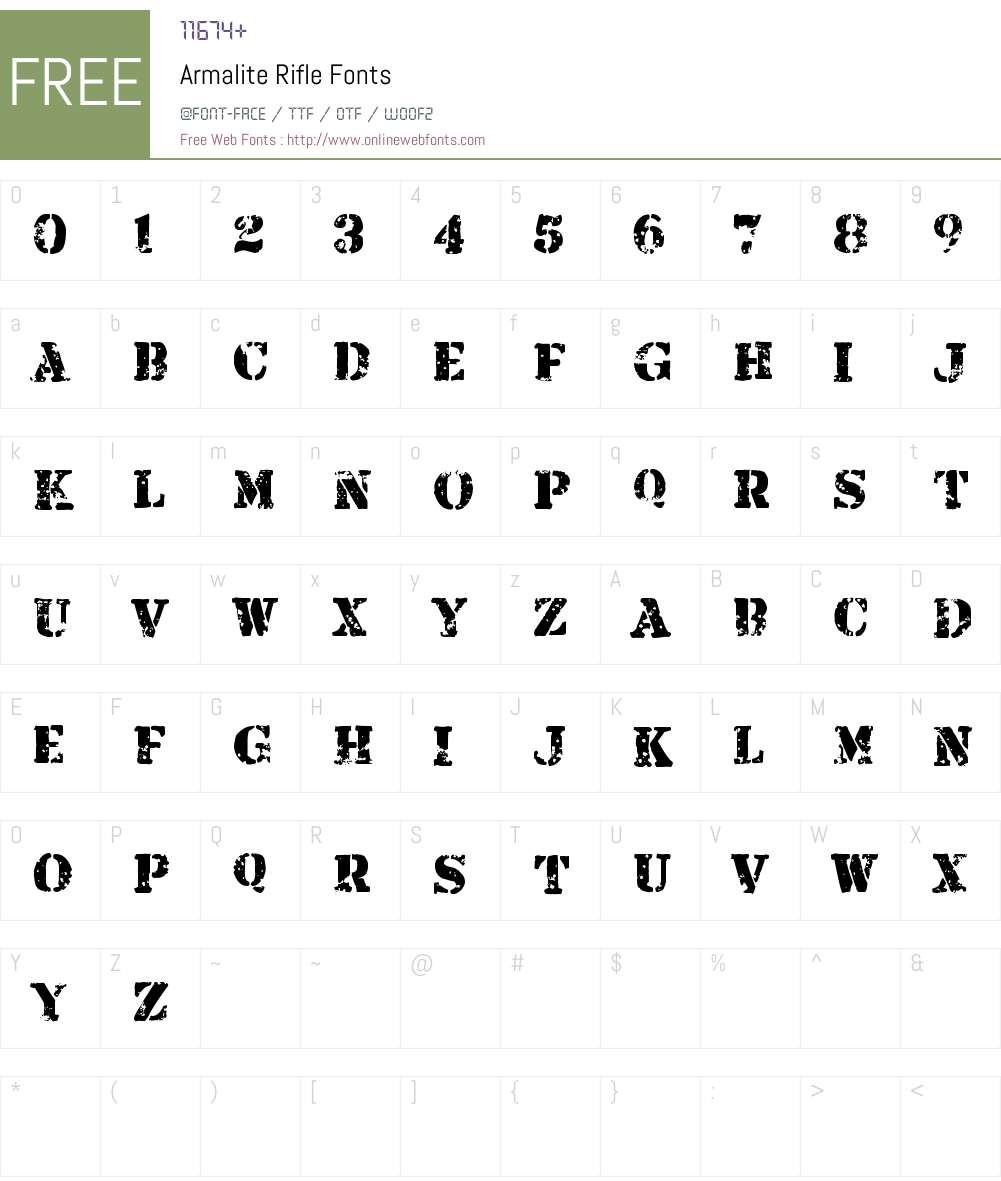
Armalite Rifle Pro Font Free
Armalite Rifle Pro Font Free. Military style stencil type, badly bruised by shotgun fire,. Browse font spring 2022 deals.
For those of you looking for an improved version with more/better accents etc: Armalite rifle free font is developed by vic fieger and is distributed under vic fieger license. If you recognize the font from the samples posted here don't be shy and help a fellow designer.
Armalite Rifle Pro Was Designed By Vic Fieger, Roger Nelsson And Published By Cheapprofonts.
Armalite rifle pro was designed by vic fieger, roger nelsson and published by cheapprofonts. Enter custom sample text to change the font previews below. Examples and download link for the armalite rifle pro font designed by vic fieger, roger s.